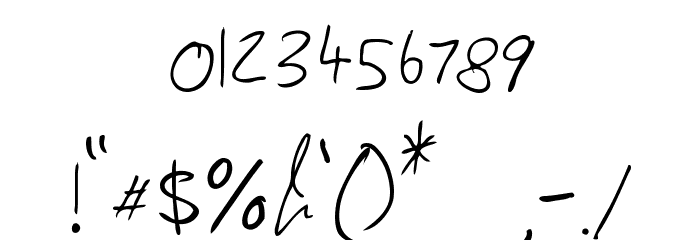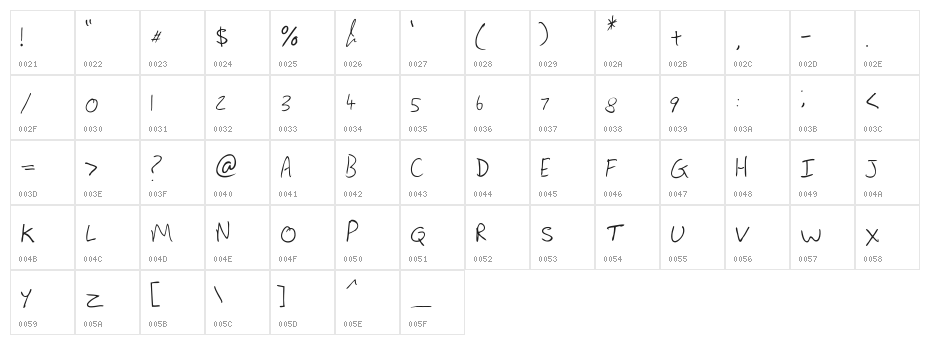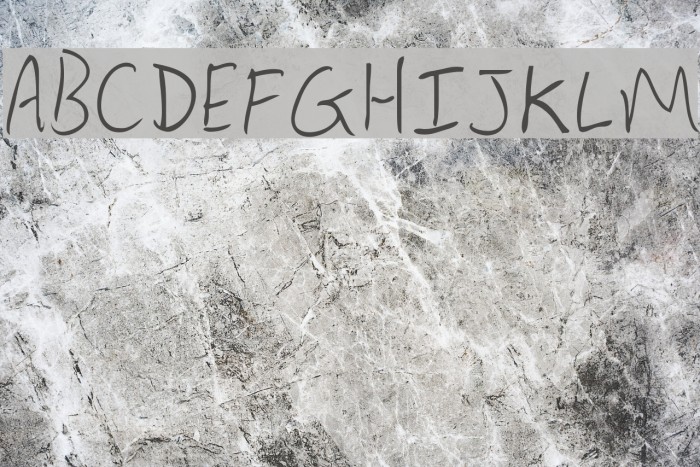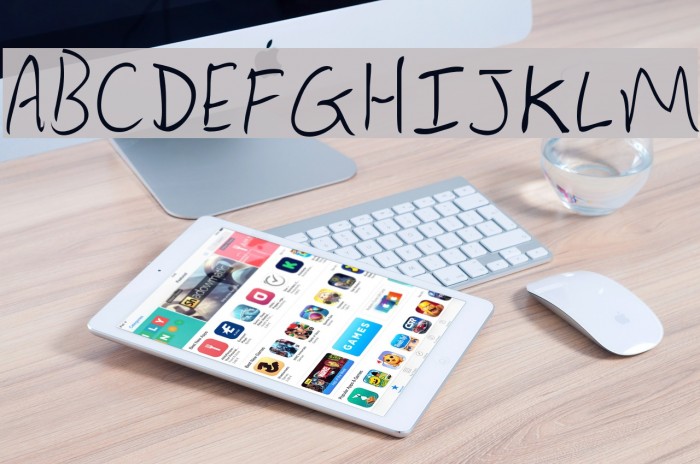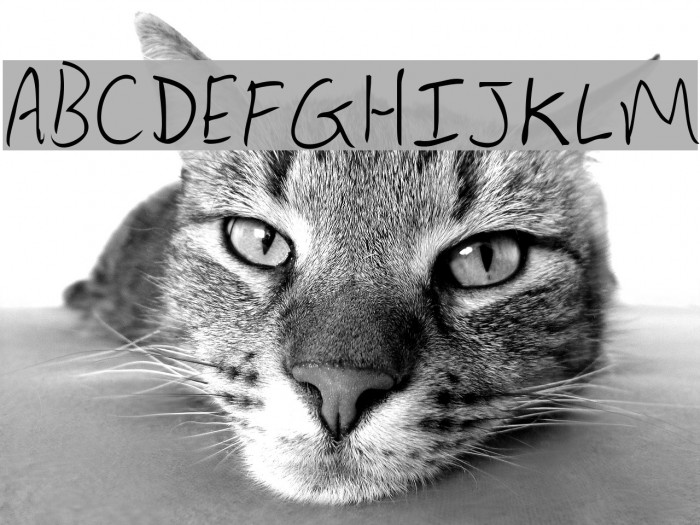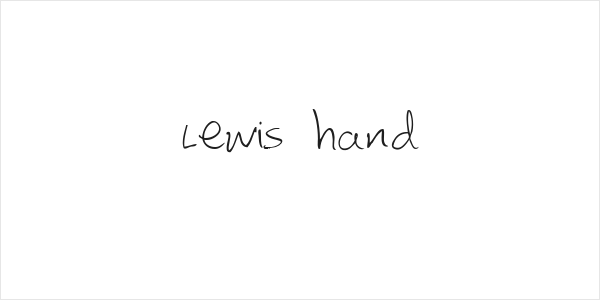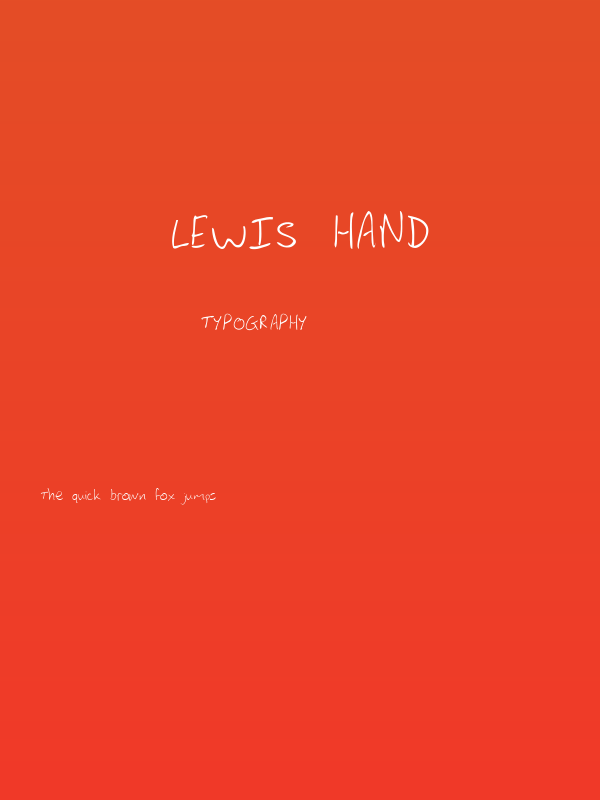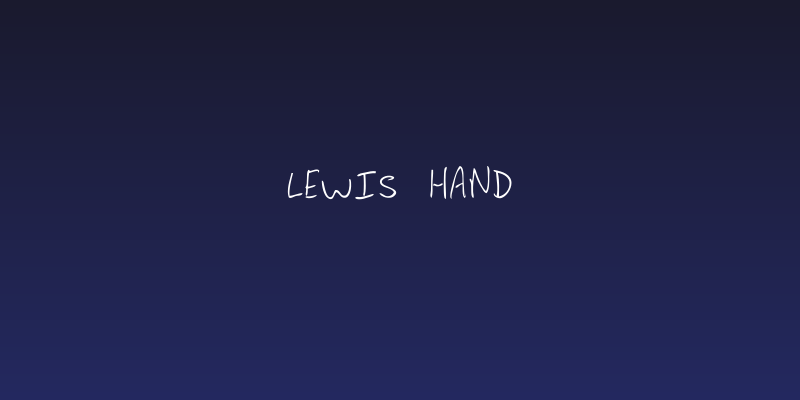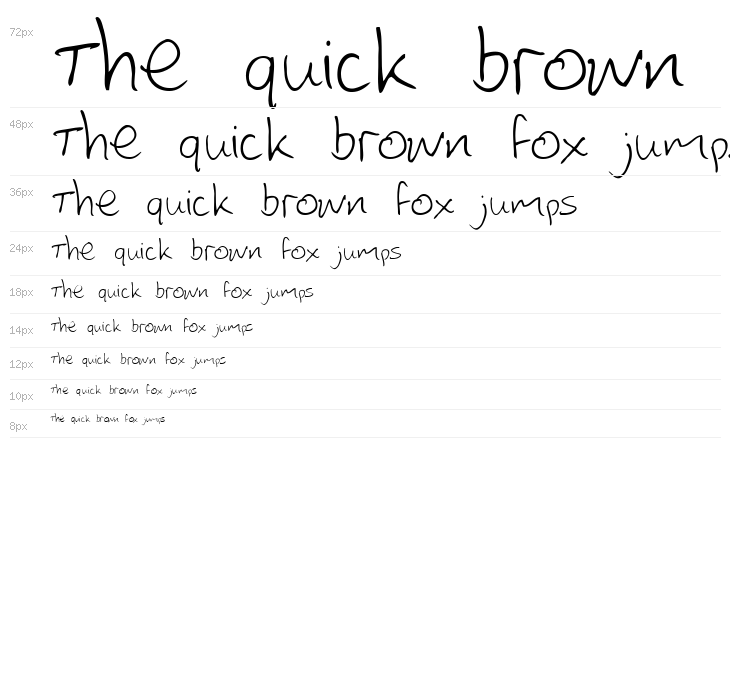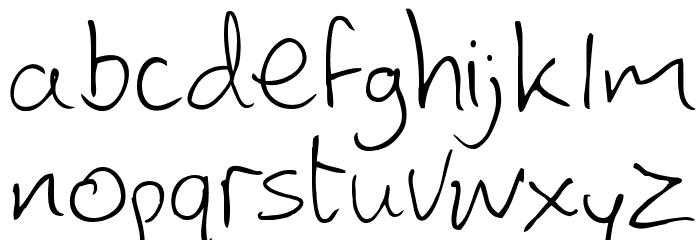
Lewis hand Font
Lewis hand Description
This font exudes a casual and personal touch, reminiscent of natural handwriting. The strokes are fluid and slightly irregular, giving it an authentic, hand-drawn feel. The uppercase letters are bold and expressive, while the lowercase letters maintain a consistent flow, enhancing readability. Numbers and special characters are crafted with the same organic style, ensuring a cohesive look across all text elements. The overall appearance is approachable and friendly, making it suitable for projects that require a personal or informal tone.
| Use Case | Logos, Headlines, Informal text |
| Proposed Projects | Ideal for personal invitations, greeting cards, casual branding, and social media graphics. |